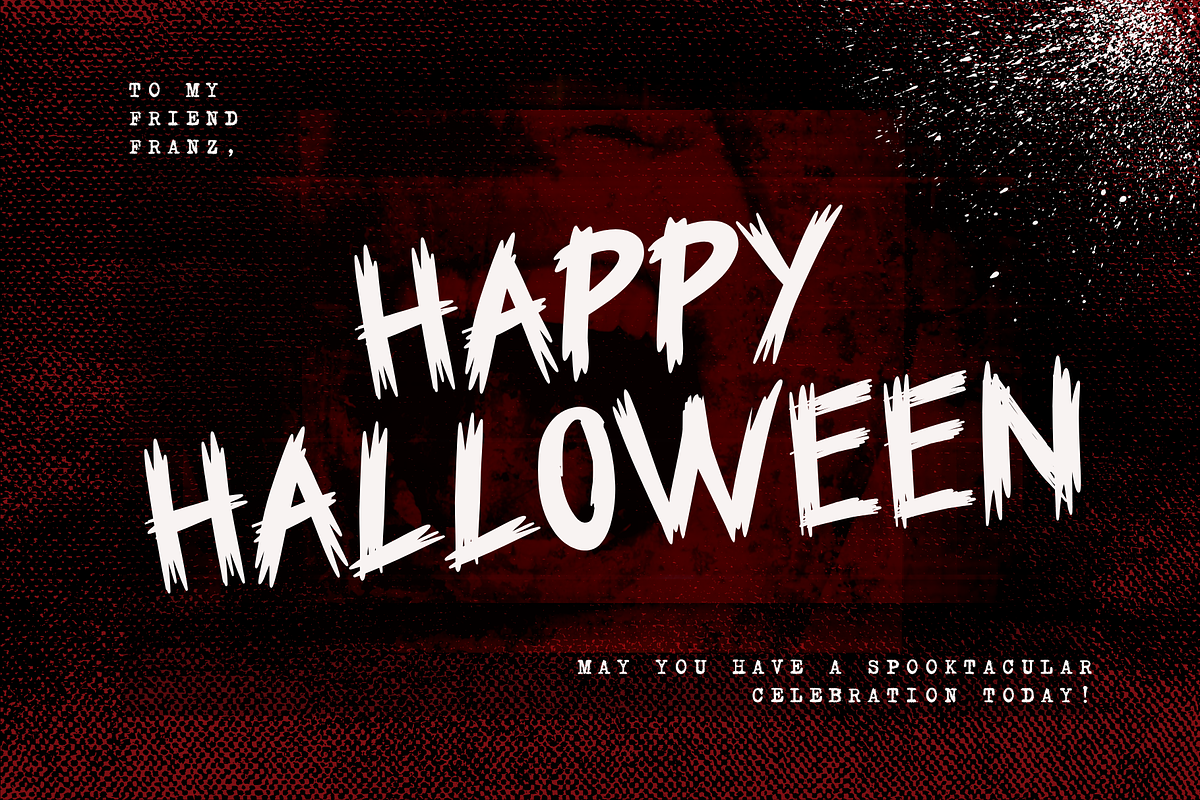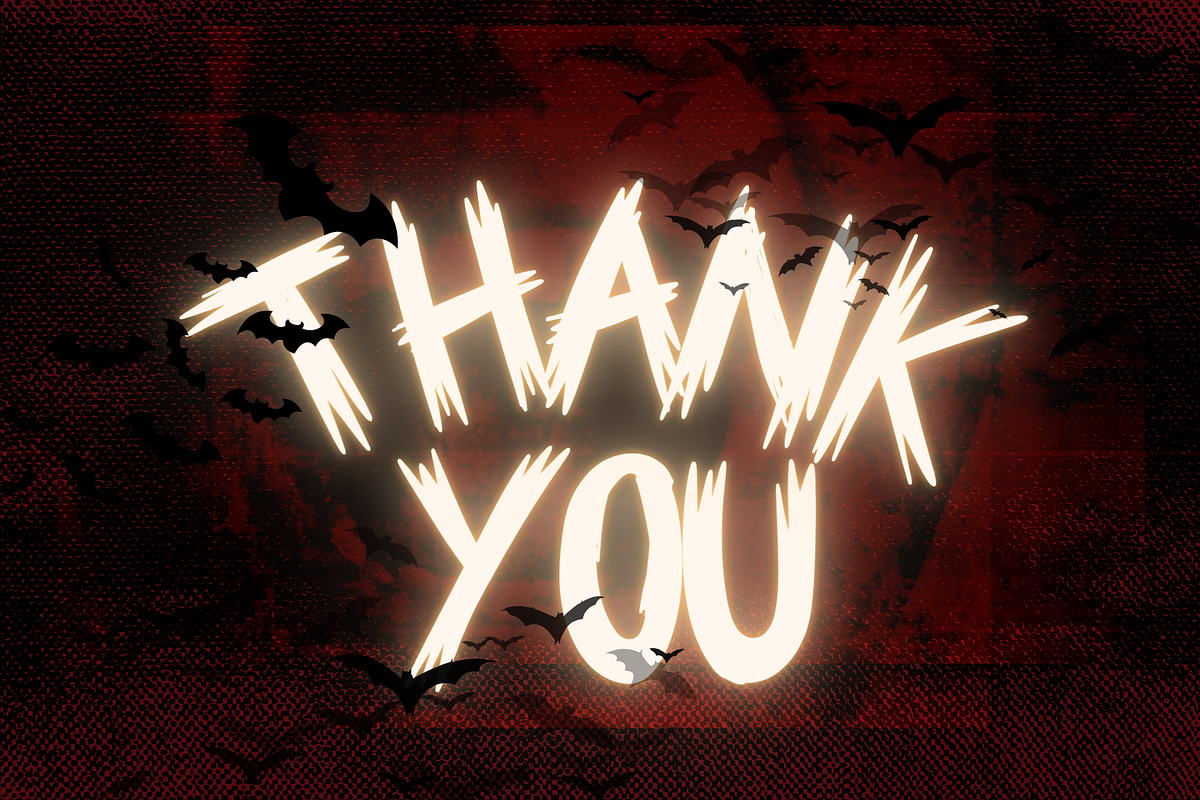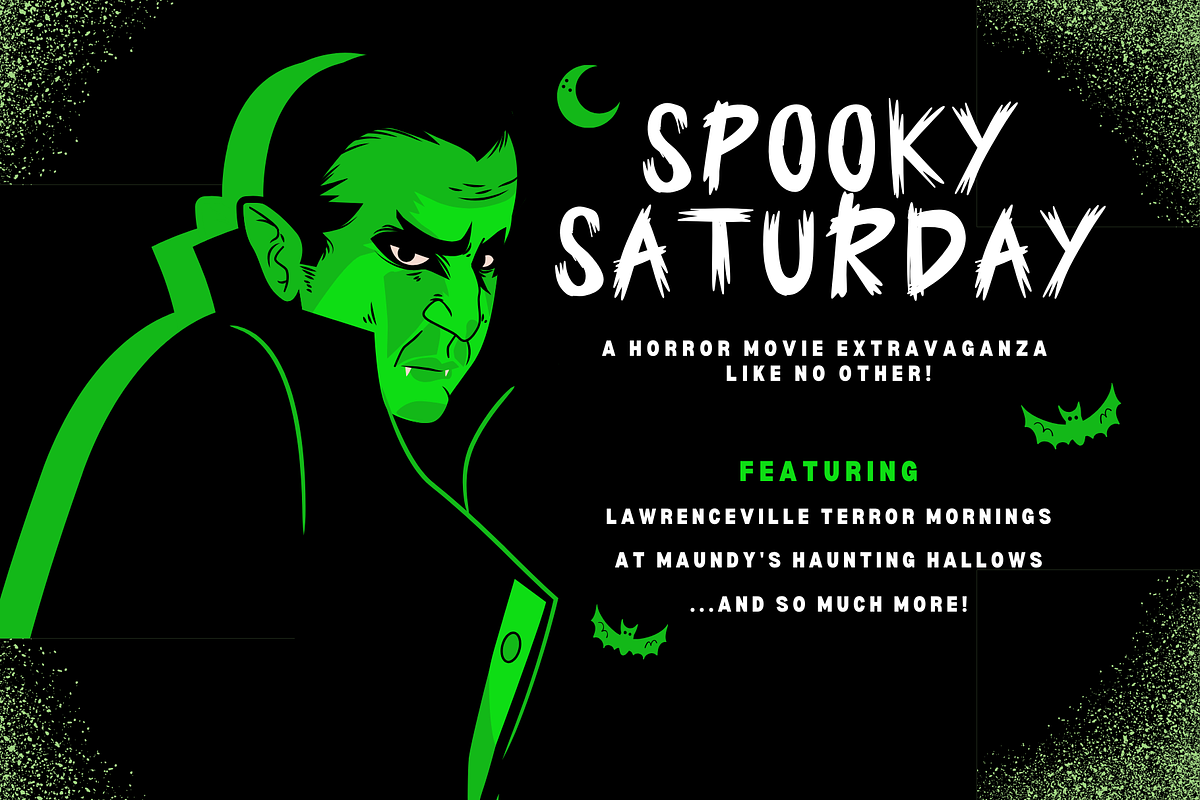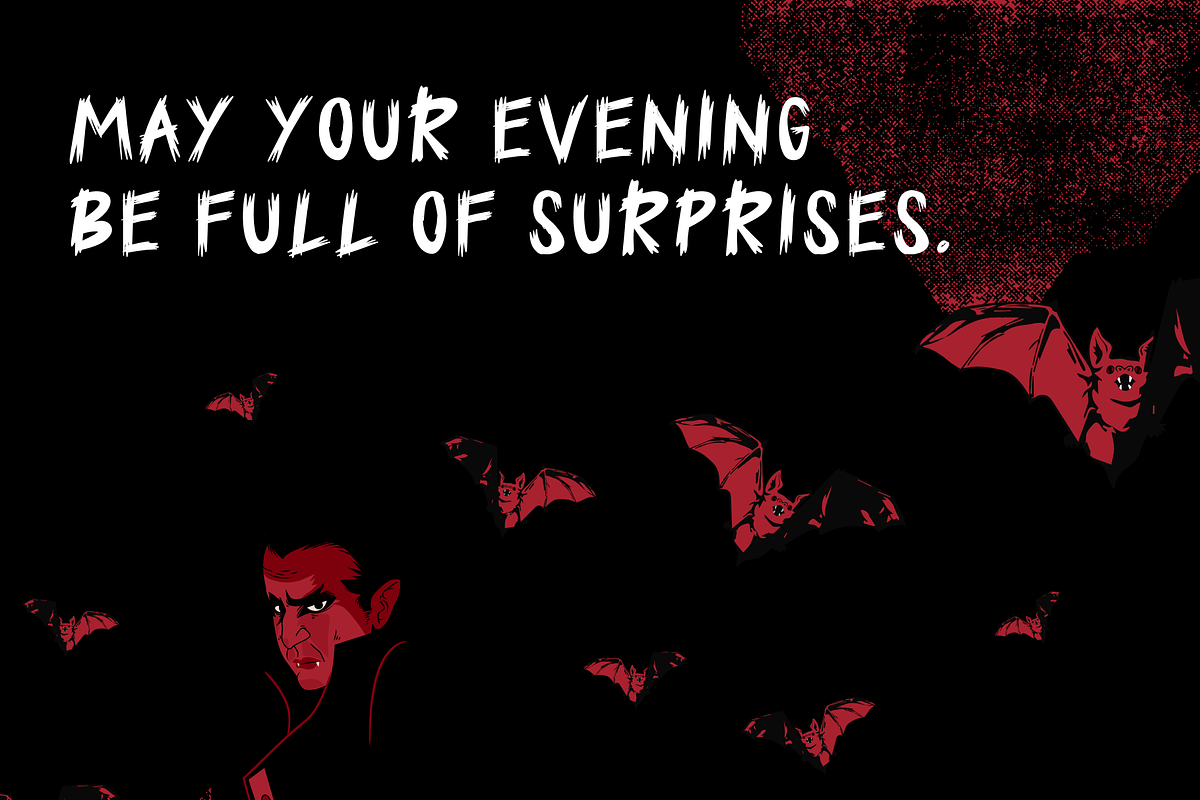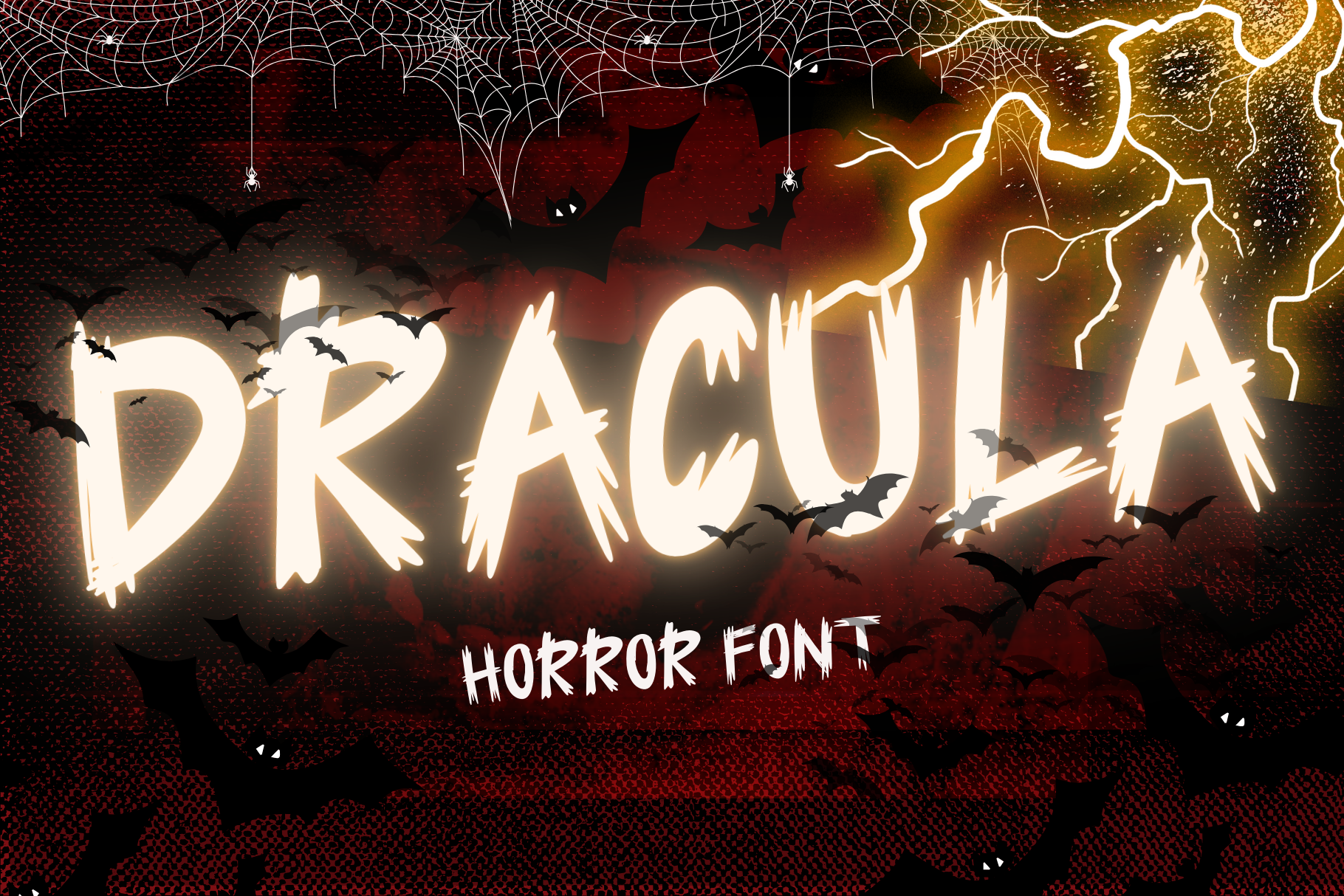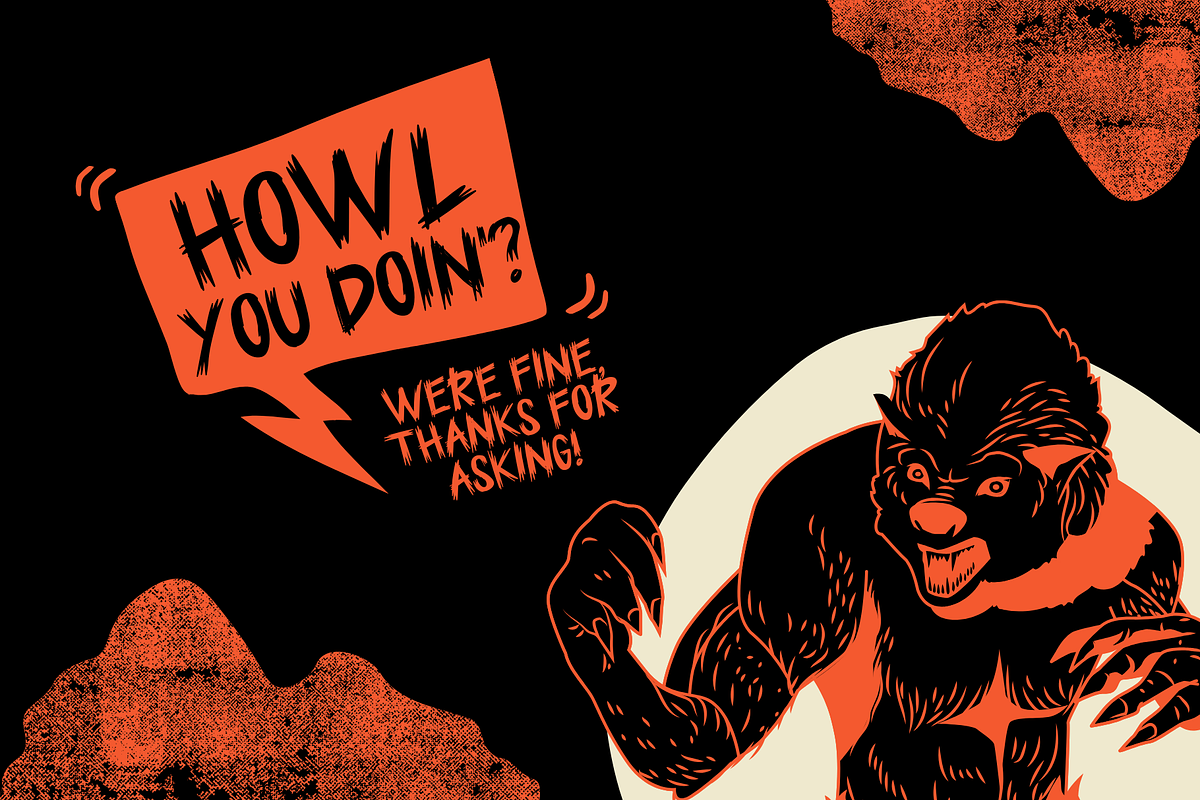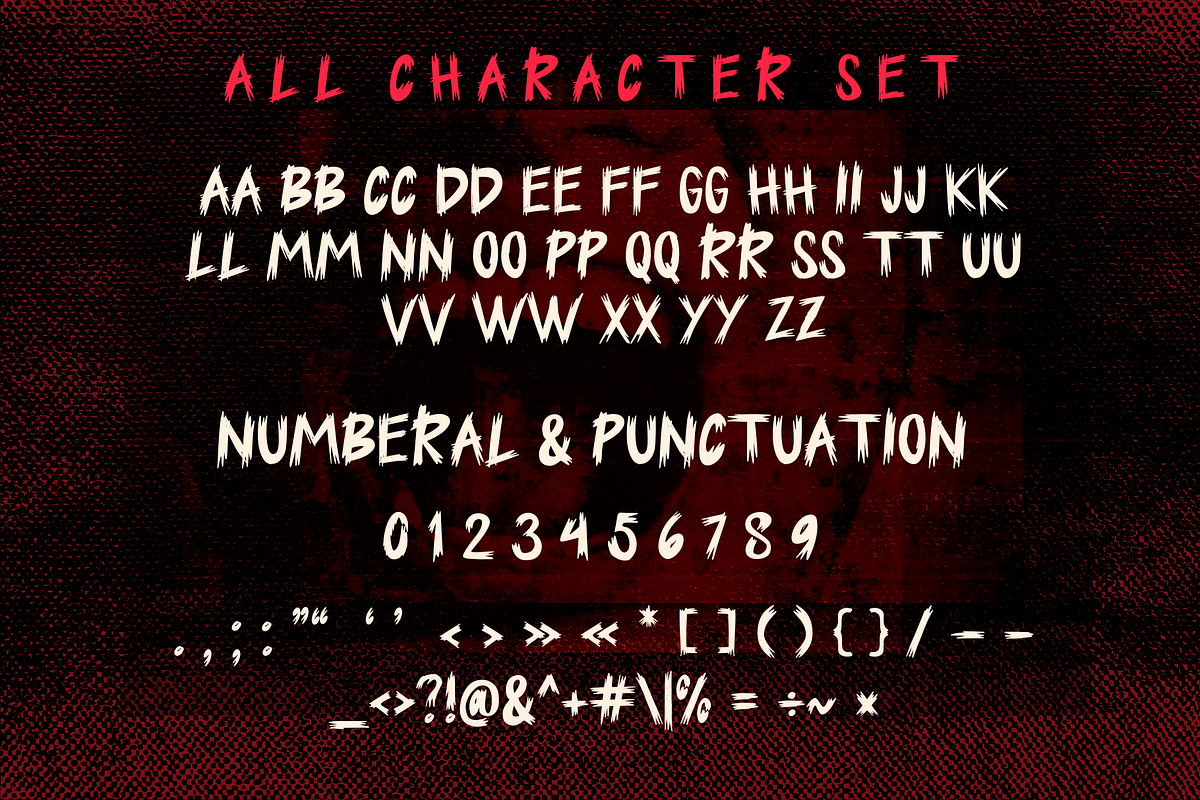
Dracula is a cool Halloween font
Dracula is a cool Halloween display font. It embodies playfulness and authenticity and is the perfect choice for all your favorite projects such as blog posts, logos, branding, ads, invitations, greeting cards, planners, photo albums, decorations, and more. Add it to any of your designs, and enjoy the results!